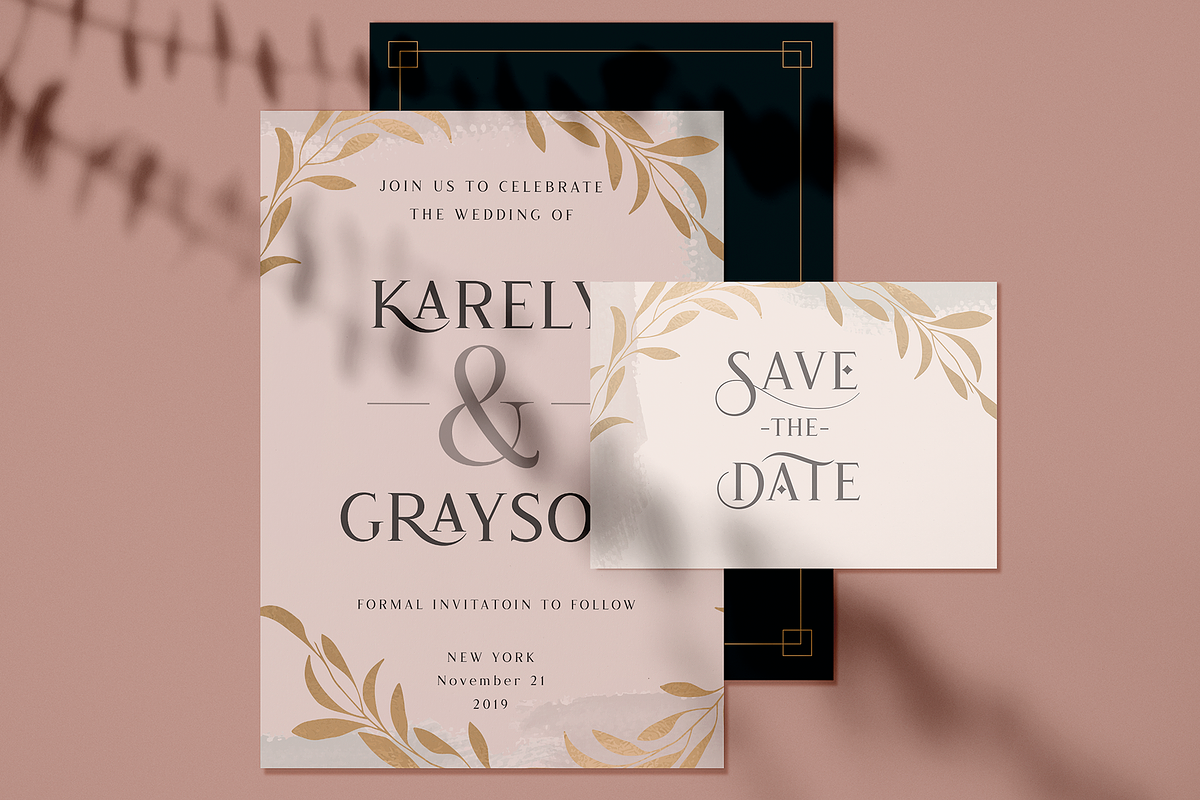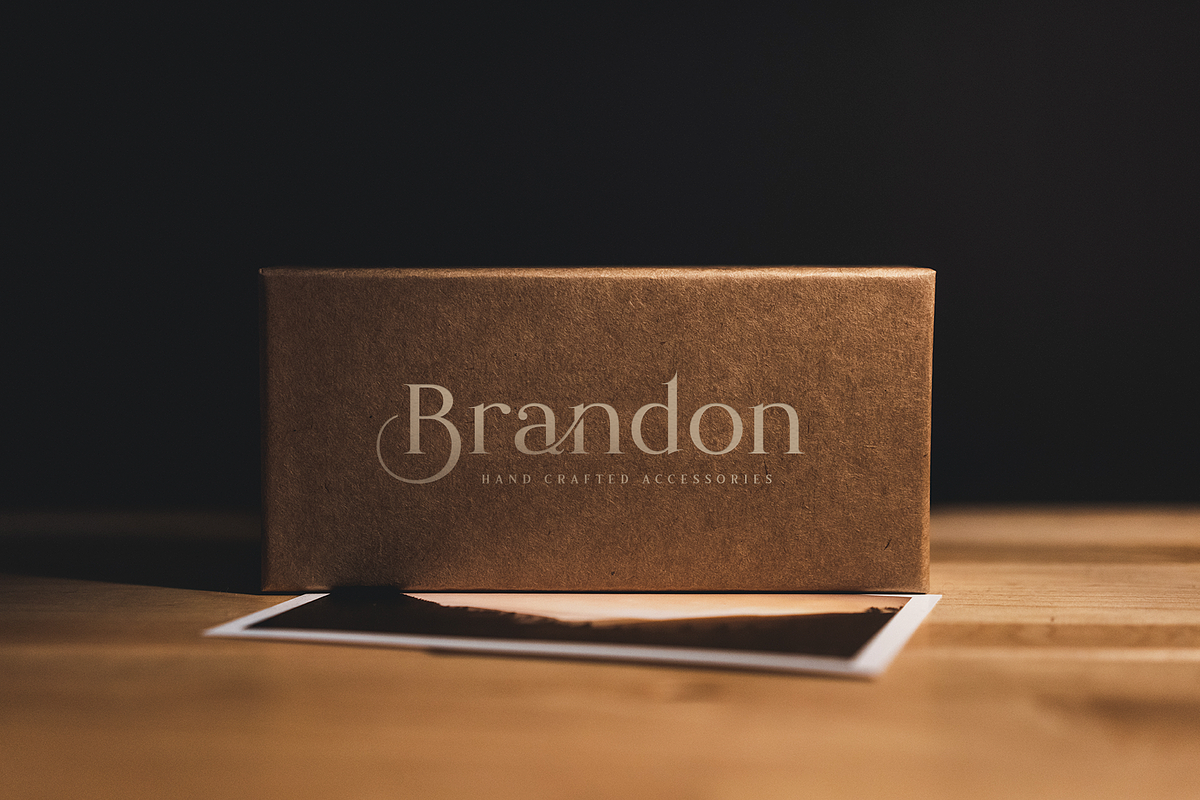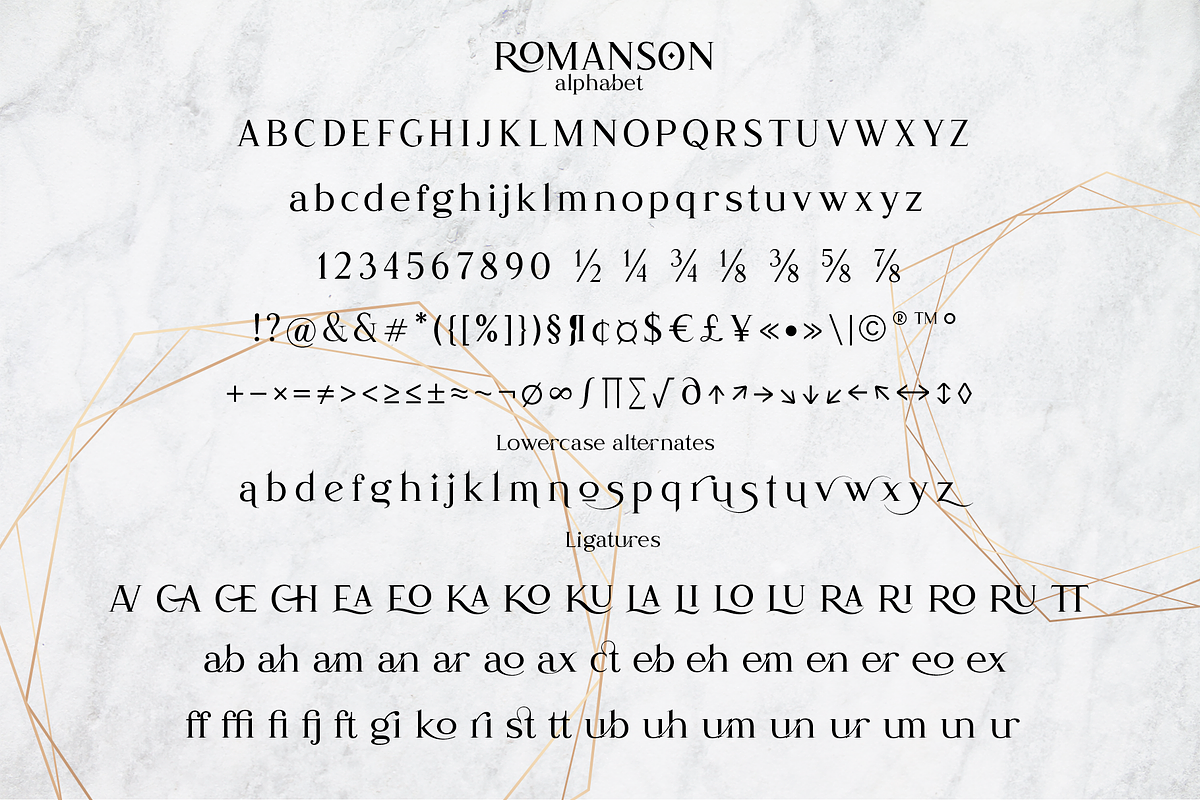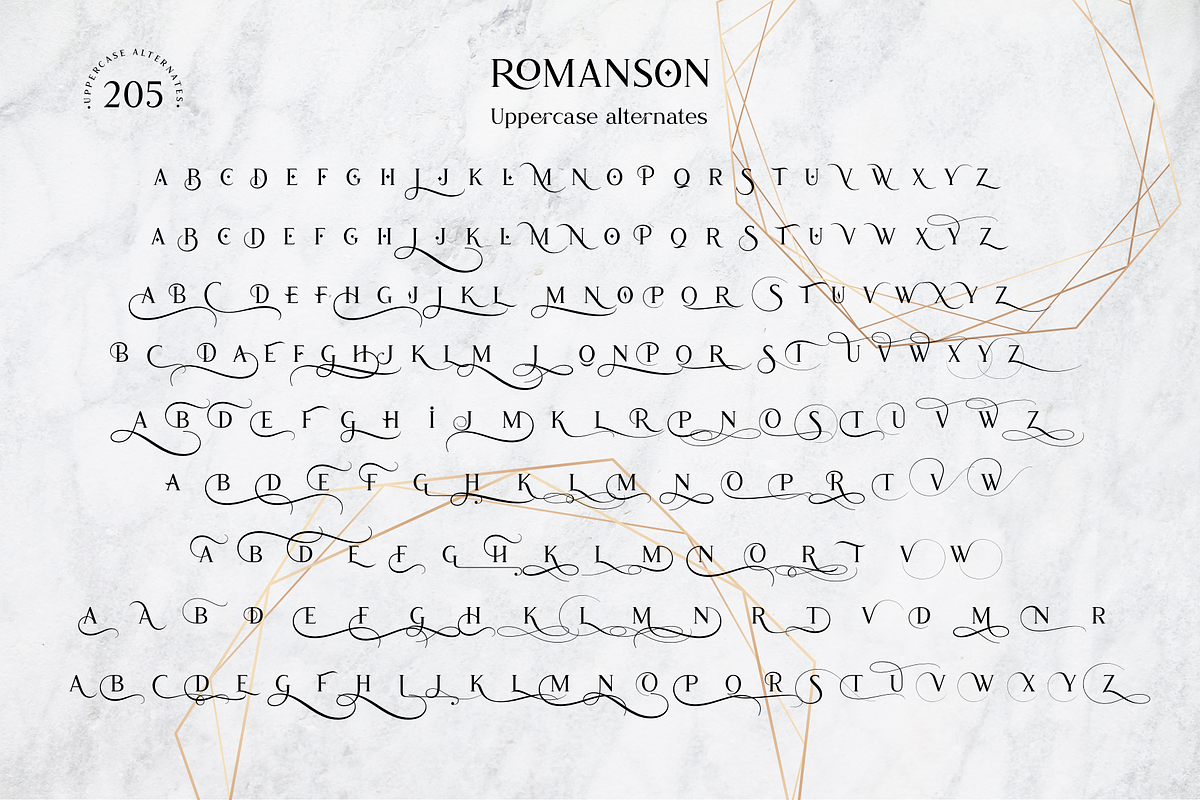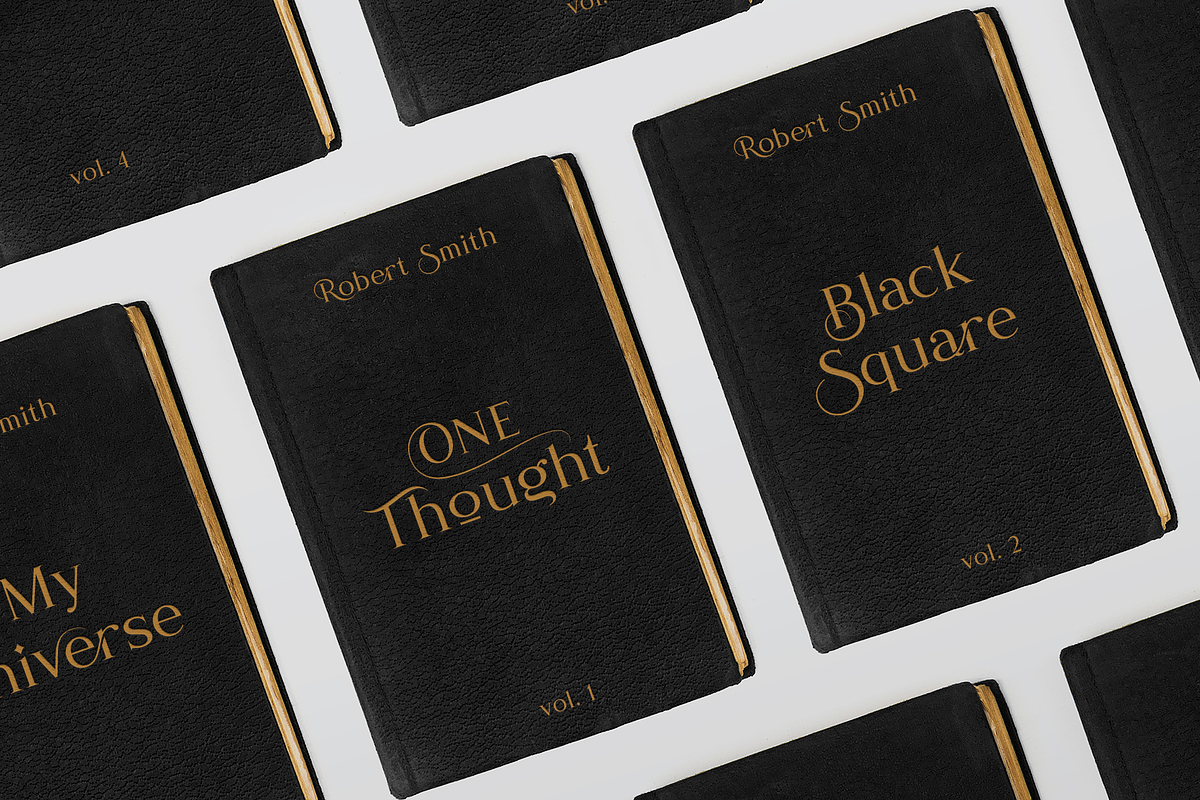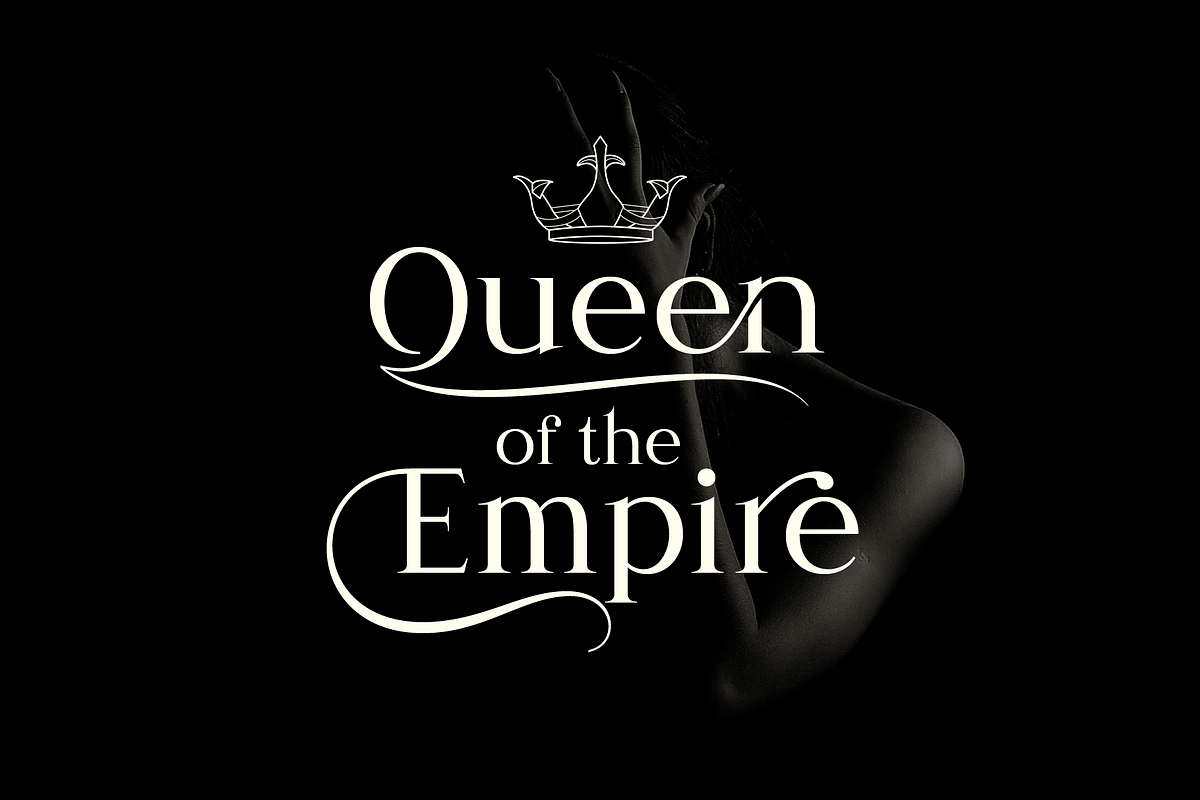
Romanson
Romanson - a modern serif font with a lot of alternates and ligatures. This font can look more classic (conservative) serif, which is perfect for texts. So same he can be more expressive, playing and more modern with alternative substitutes and ligatures, try to play with them and you will get the uniqueness in your project. Just try to create a logo from uppercase, change them to create the best and harmonious and inimitable design. this font is easy to use has OpenType features, and All characters in this font are PUA-encoded.
Following international symbols support: ÀÁÂÃÄÅĄÇĆÈÉÊËĘÌÍÎÏÐÑŃŁÒÓÔÕÖØÙÚÛÜŚŠŸÝŹŻŽßàáâãäåçèéêëìíîïðñòóôõöøùúûüýÿąćęłńśšźżž
Full alphabet with Uppercase and Lowercase A-Z
Numbers, fractions
Punctuation and mathematical symbols
Alternates - 205 uppercase, 27 lowercase and ampersand
51 Ligatures